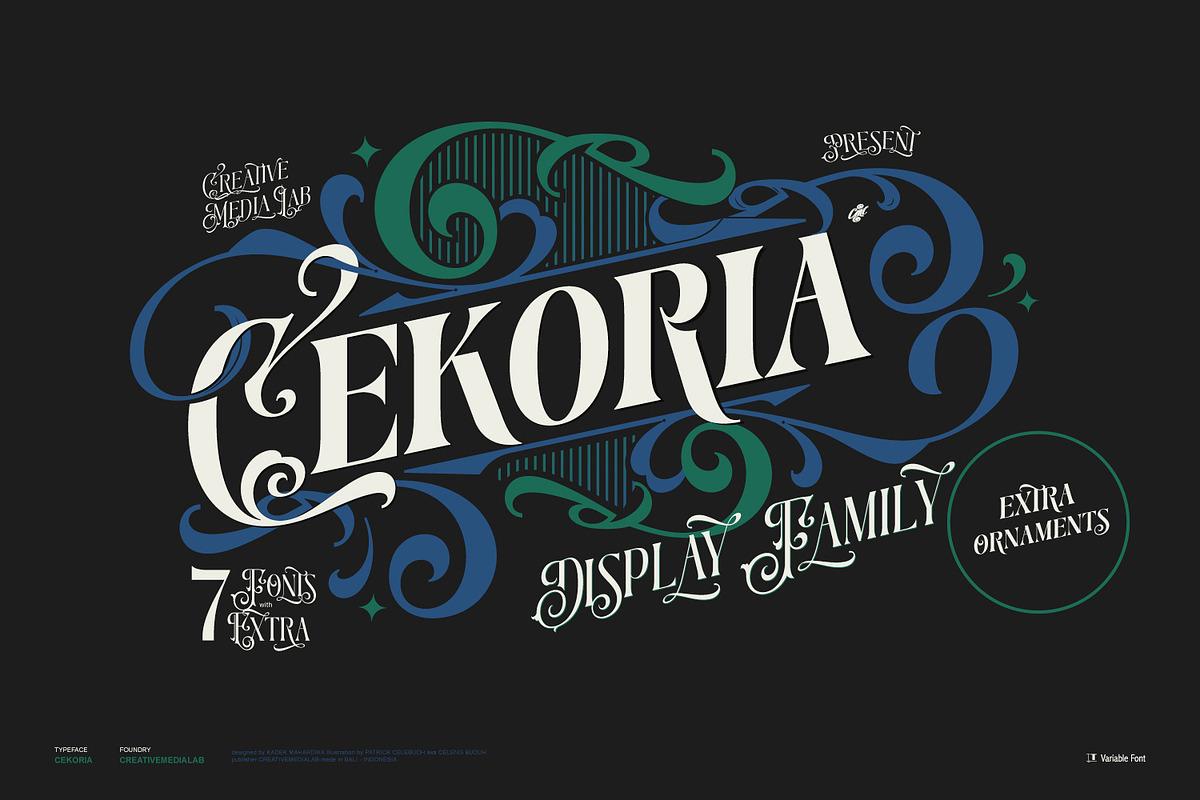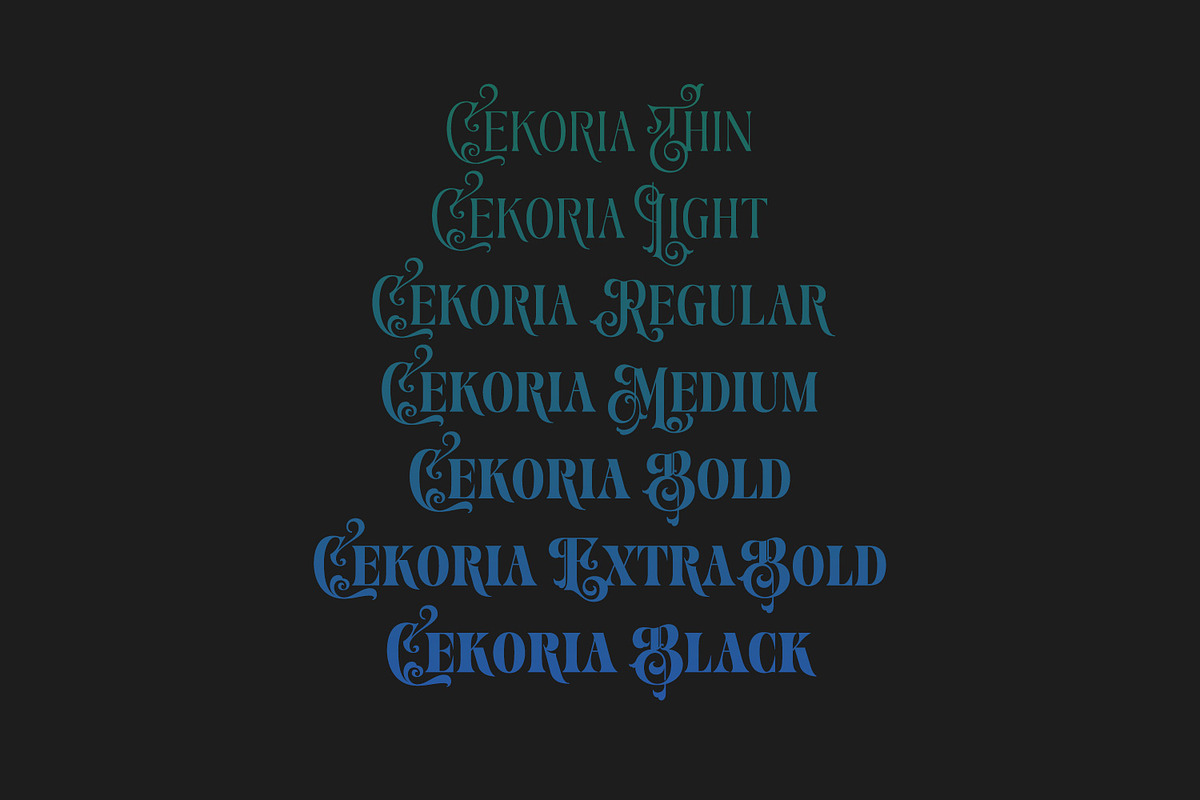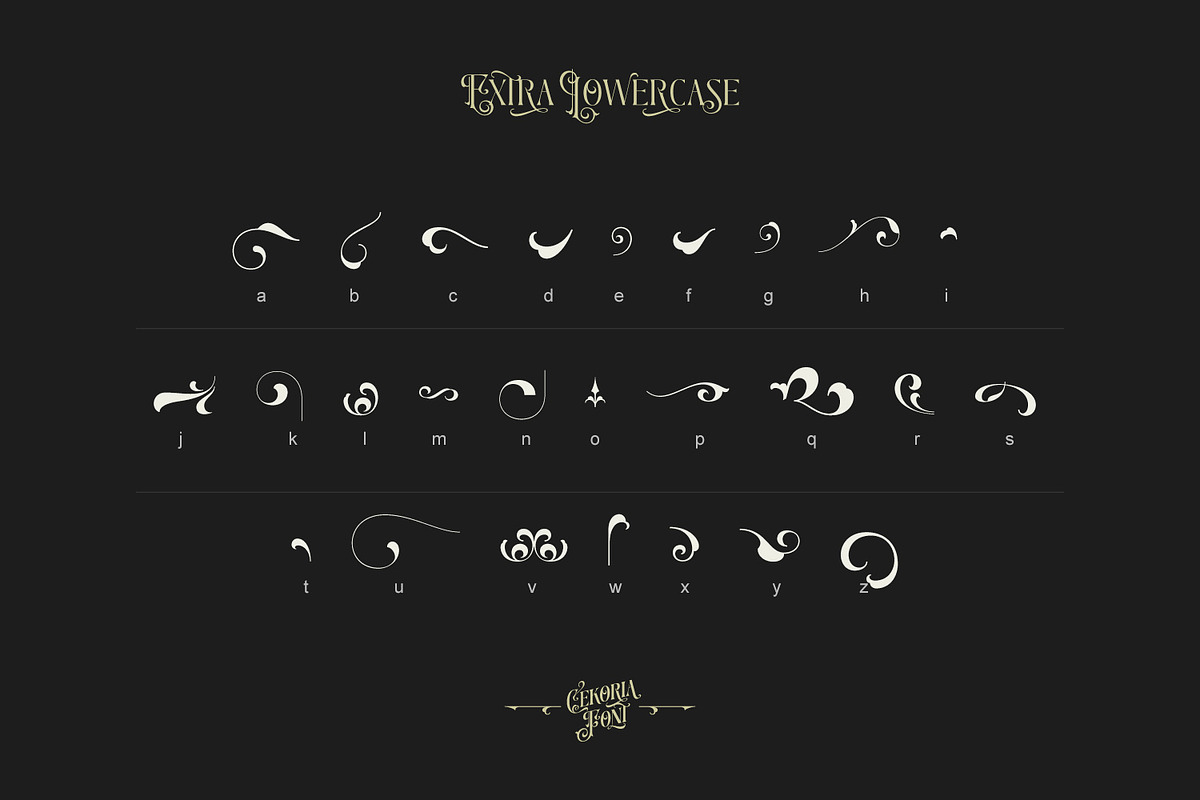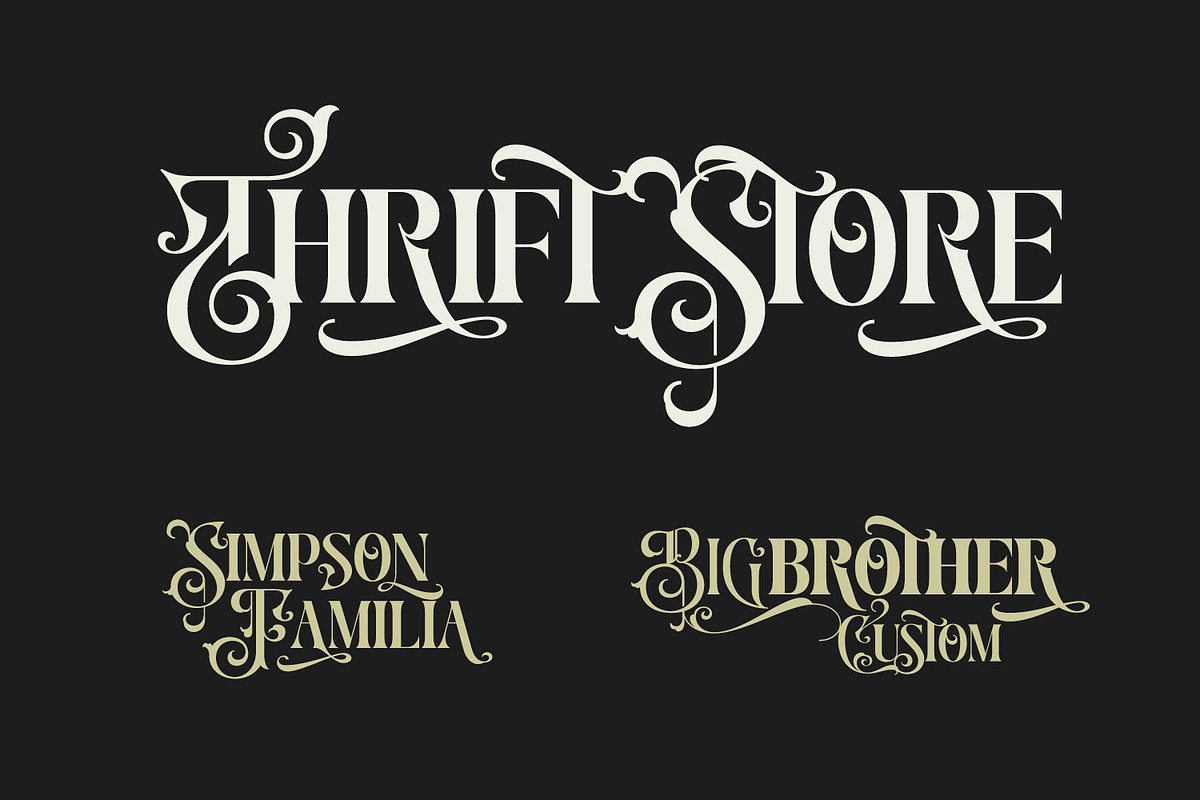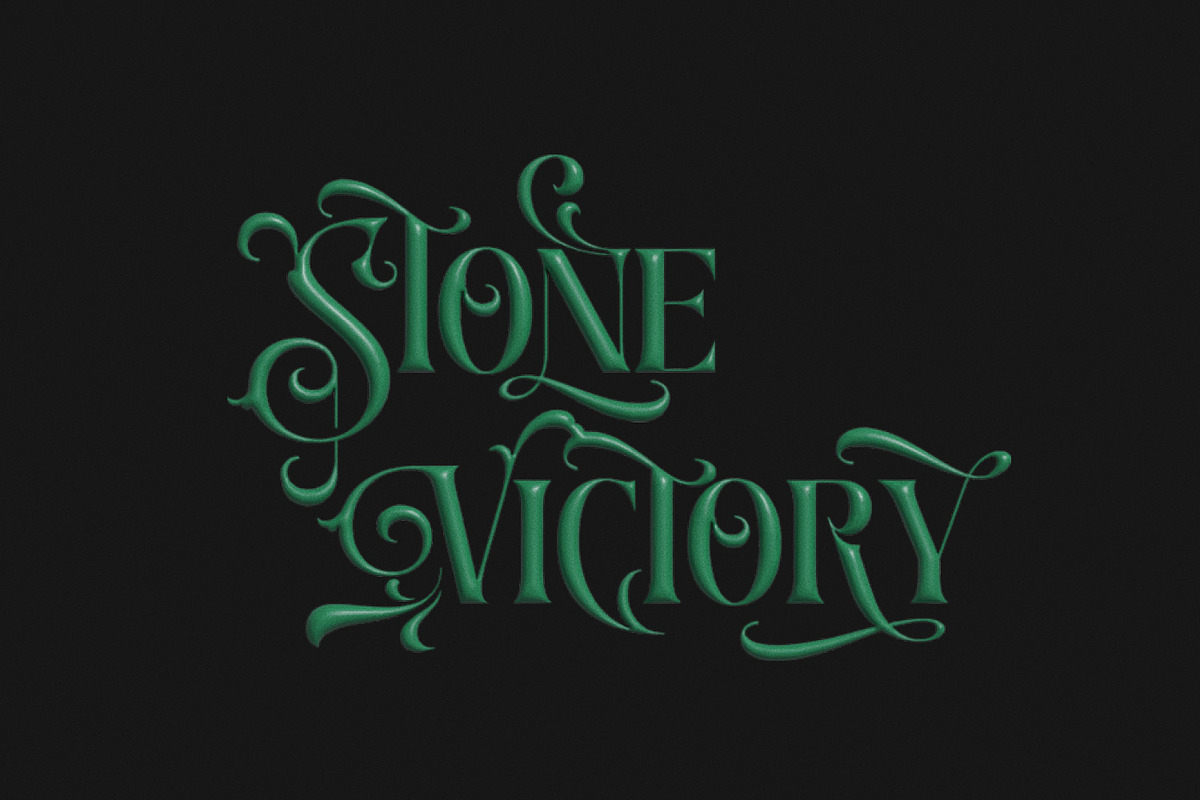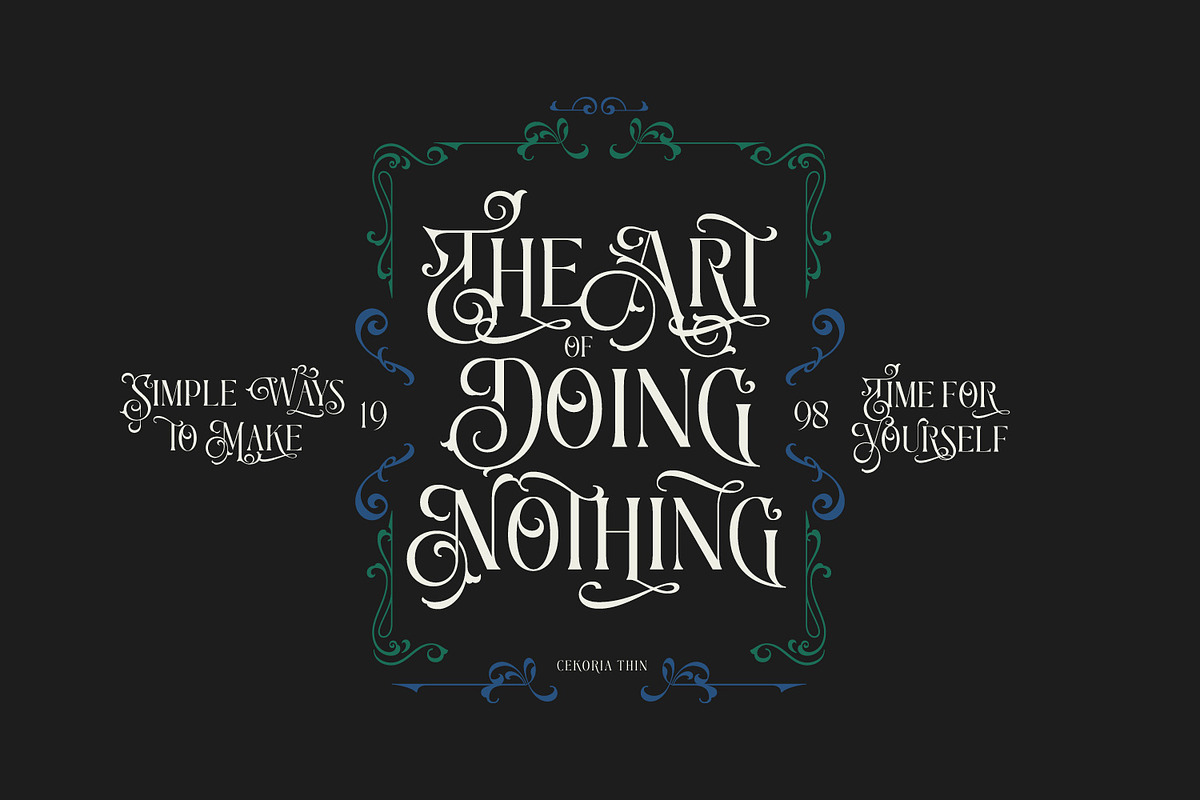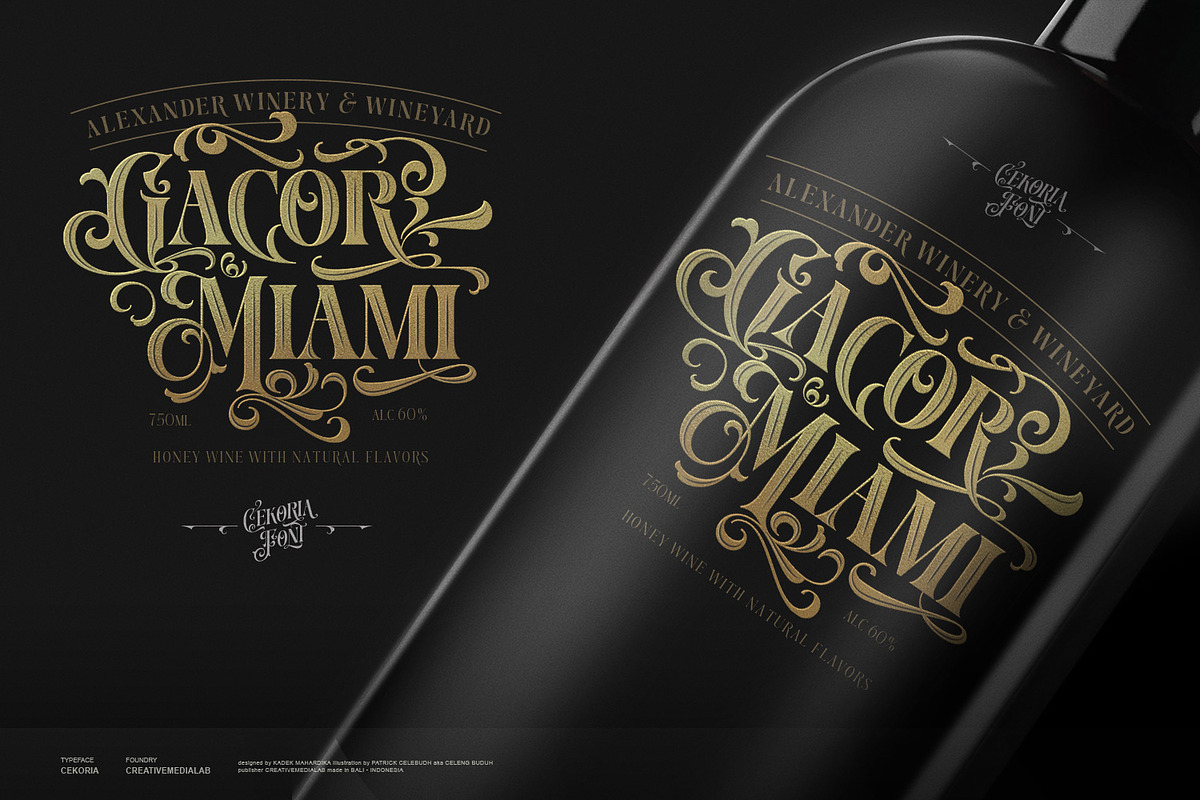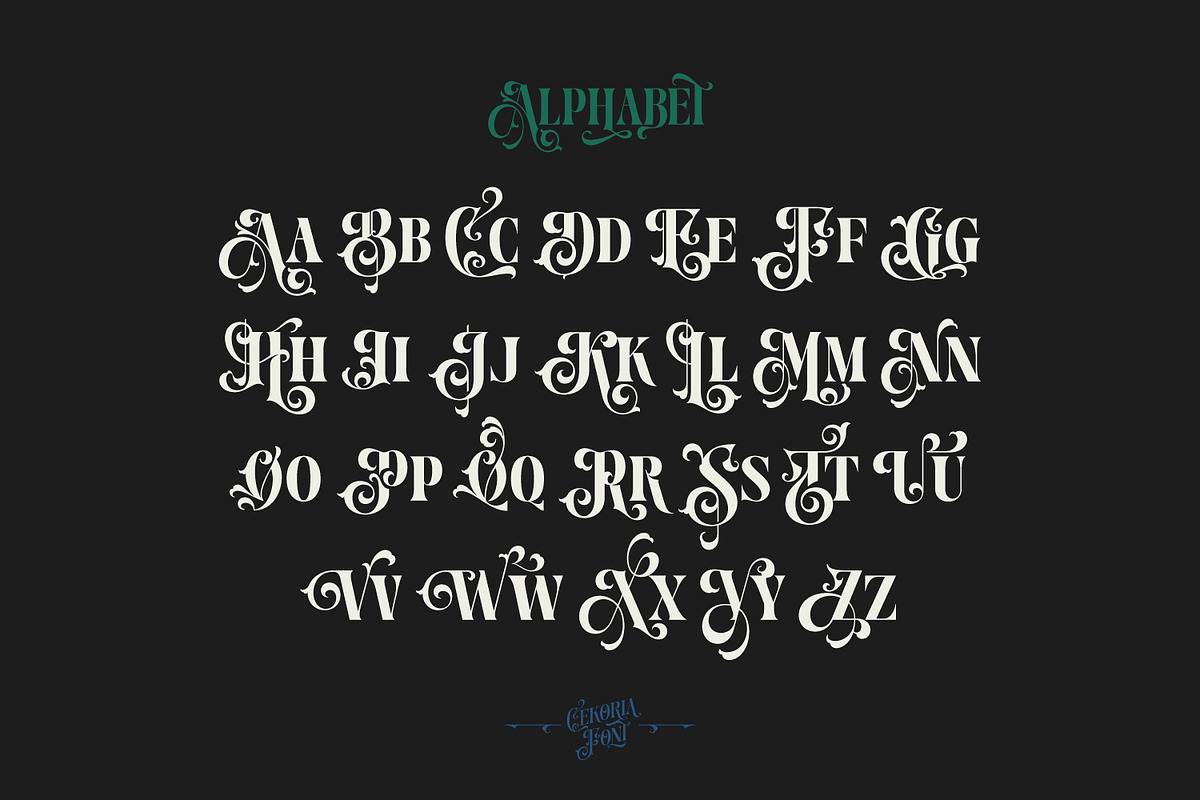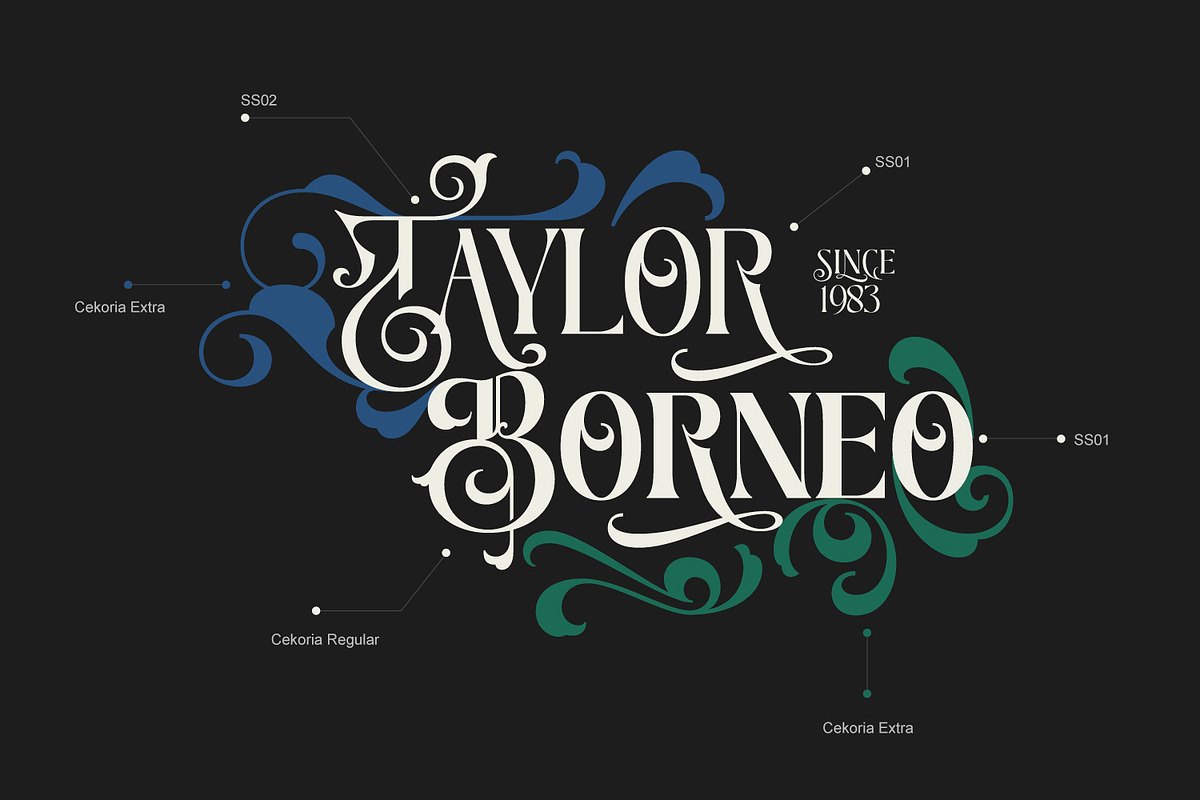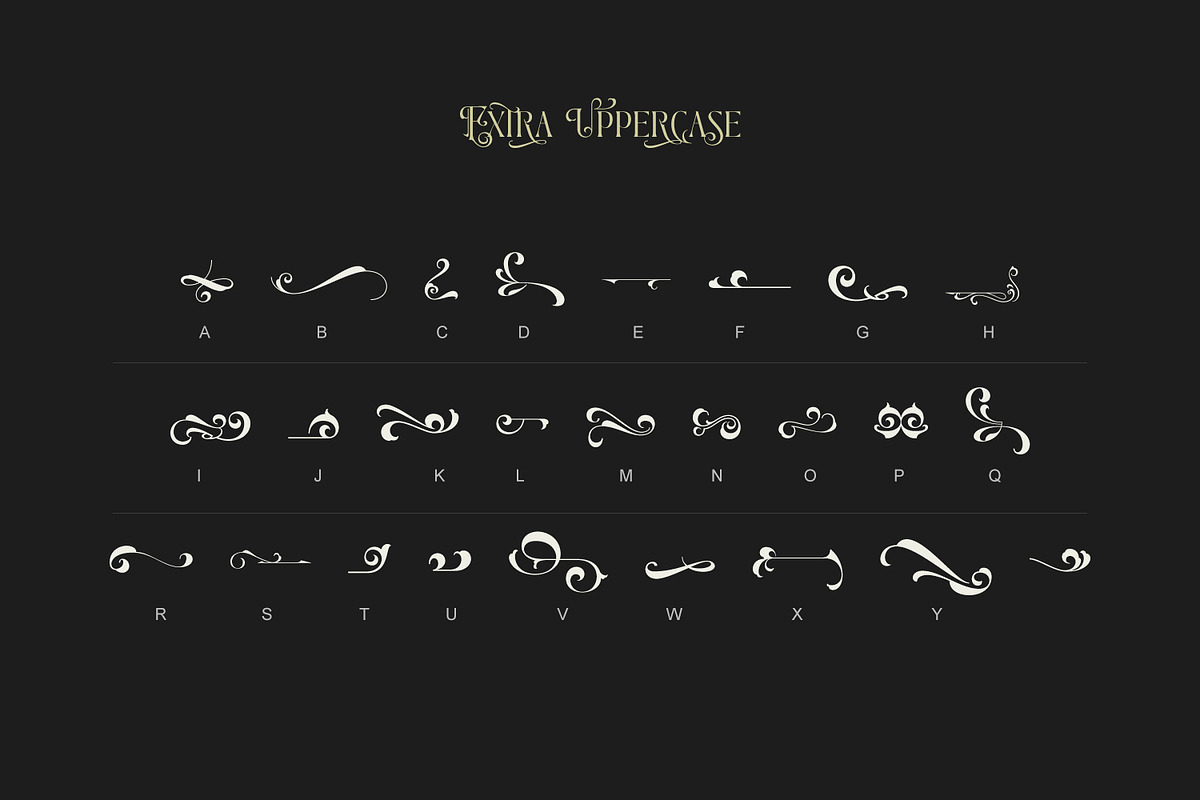
Cekoria - Decorative Display Family
Introducing Cekoria, a decorative display font inspired by classic vintage signage art. This all-caps font combines a classic serif with Victorian-style lettering. Cekoria comes in seven different weights, ranging from thin to black, and includes extra ornaments.
This font is perfect for creating logotypes, branding, packaging designs, and headlines.
- Cekoria thin - Black (7 Fonts + 1 ornaments )
- Character set A-Z with Decorative uppercase letters